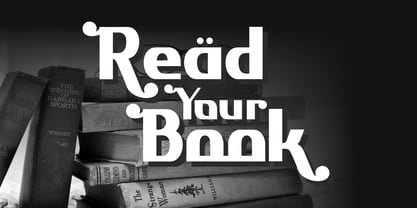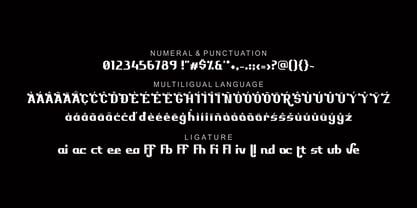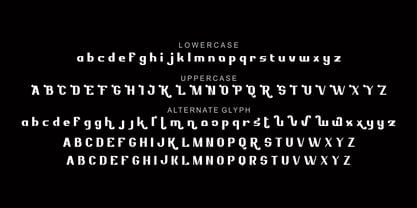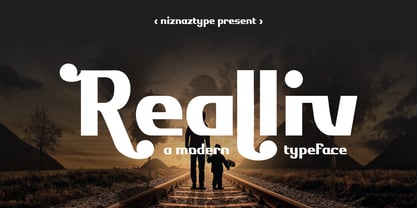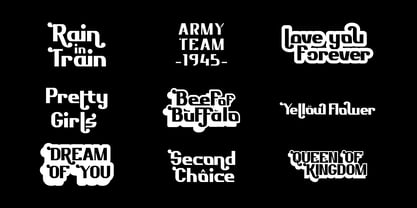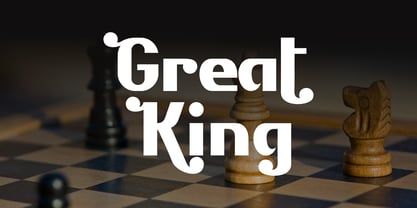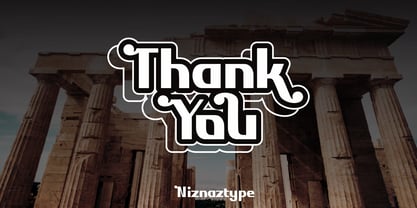
Realliv
The Realliv Font Family was designed by Muhammad Nazarudin and published by Niznaztype. Realliv contains 2 styles and family package options. More about this family
Realliv is a modern font with slab serif style. Suitable for poster,
title, advertisement, cover and other product designs.
Realliv give a taste of your design to be more modern and
contemporer style. Also this font have style like gothic and
blackletter.
Realliv consist of uppercase, lowercase, numeral, punctuation,
multilingual, alternate glyph and ligature. It have normal and
italic style.